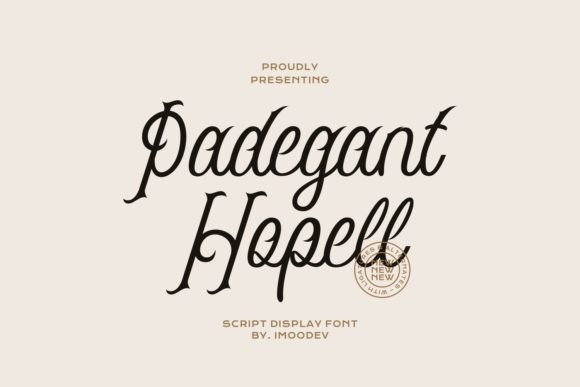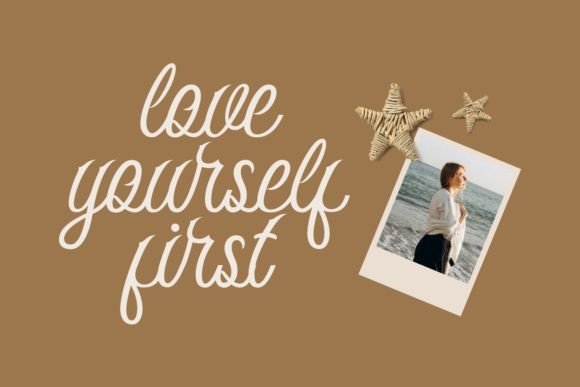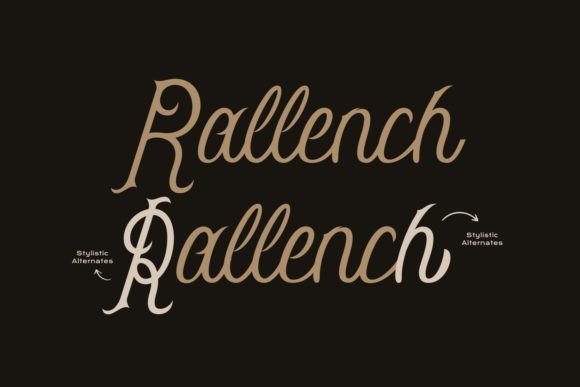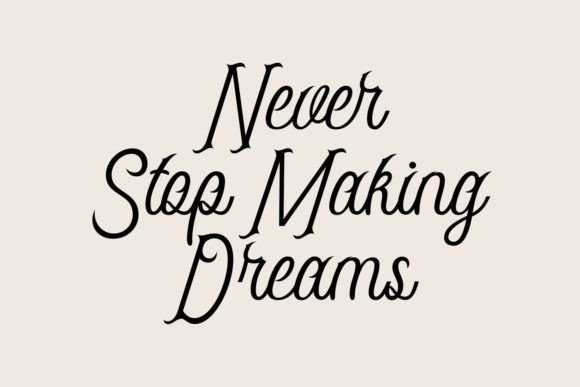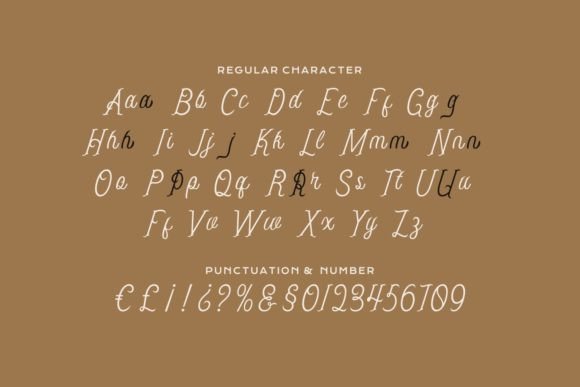
Elegant Script Typeface for Stylish and Versatile Projects
Looking for a typeface that combines sophistication, beauty, and versatility? Meet Padegant Hopell β an elegant script typeface that enhances every design it touches. With smooth curves, graceful ligatures, and a refined style, this font brings luxury and authenticity to your creative work.
Whether youβre building a brand, designing an invitation, or crafting digital art, Padegant Hopell is a go-to choice for polished and expressive typography.
Introducing Padegant Hopell: Stylish, Smooth, and Flexible
Padegant Hopell delivers a professional appearance with just the right amount of charm. Itβs designed to flow naturally with elegant transitions between characters, which makes it perfect for both headlines and body text. Thanks to its graceful design, this elegant script typeface looks equally stunning on a product label or a digital banner.
You can use Padegant Hopell in:
Branding and logos for lifestyle products
Elegant invitations and wedding suites
Product packaging and mockups
Stylish magazine layouts and covers
Social media posts and Pinterest pins
Business cards, labels, or editorials
Because itβs clean and detailed, the font remains readable in both large and small sizes β perfect for all your design needs.
Why Designers Choose Padegant Hopell
Professional designers and content creators love Padegant Hopell for its timeless appearance and effortless usability. Hereβs why it stands out:
Elegant, flowing script with high legibility
Ideal for upscale and modern visual identities
Includes stylish ligatures and alternate glyphs
Works well across print and digital platforms
This elegant script typeface turns everyday designs into sophisticated works of art.
Perfect for Businesses, Agencies, and Personal Brands
Padegant Hopell fits beautifully into both professional and personal projects. Itβs especially useful for:
Corporate identity designs and agency portfolios
Wedding planners and event stylists
Fashion blogs, lifestyle influencers, and creatives
Product designers and Etsy sellers
Business presentations and high-end marketing assets
No matter the industry β from industrial to artistic β this font adapts gracefully while keeping your message stylish and on point.
Padegant Hopell is more than a typeface β itβs a visual experience. Designed to embody elegance and flexibility, this elegant script typeface is suitable for countless applications. Whether you want to elevate a logo or add class to your content, Padegant Hopell is here to deliver sophistication with every keystroke.